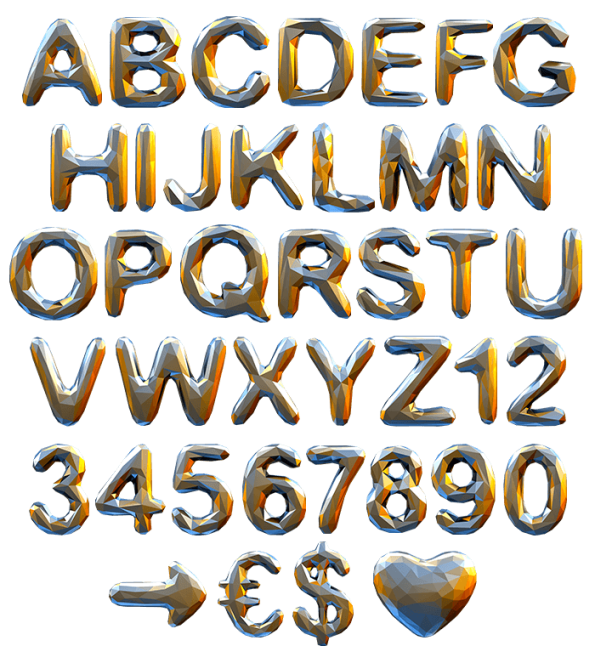
Lowpoly Gold Font. Be Trendy With Unique Typeface
Lowpoly Gold Font by Oleksandr Kozachok is a unique typeface that is made in accordance with all laws of a new trend in modern typography that is called low-poly stylization. Now you won’t have to scour YouTube graphic tutorial channels in order to make a polygonal typeface because you have this creative font in your collection.
Low Poly Stylization Of Fonts
Surely, there are many outstanding, contemporary fonts out here, but Lowpoly Font by Oleksandr Kozachok, Ukraine, is something special.  The golden alphabet has direct connections with the term “low poly” that implies usage of a 3D model with a minimum amount of polygons. For the moment digital art illustrators often turn their gaze to so-called low poly stylization. And that means practically everything: landscapes, portraits, logos… and now fonts made by hand as well.
How To Astonish With Unusual Typeface
The large world of digital art will embrace this unusual typeface eagerly. Illustrators will appreciate the trendy aesthetic of Lowpoly Gold Font. As a designer, you can make a lot of fascinating things with this polygonal typeface, starting with company logos and finishing with event flyers.